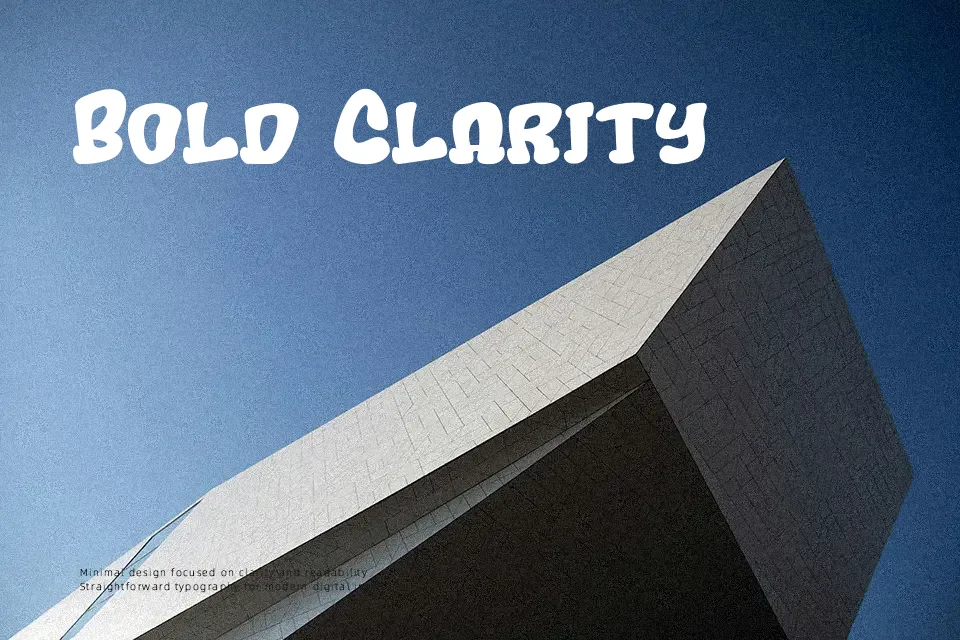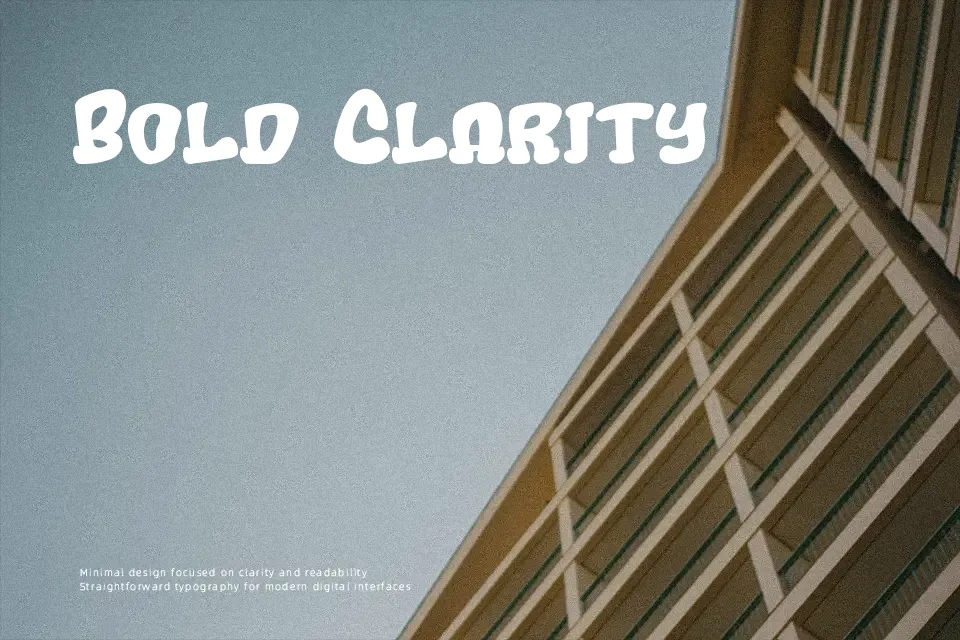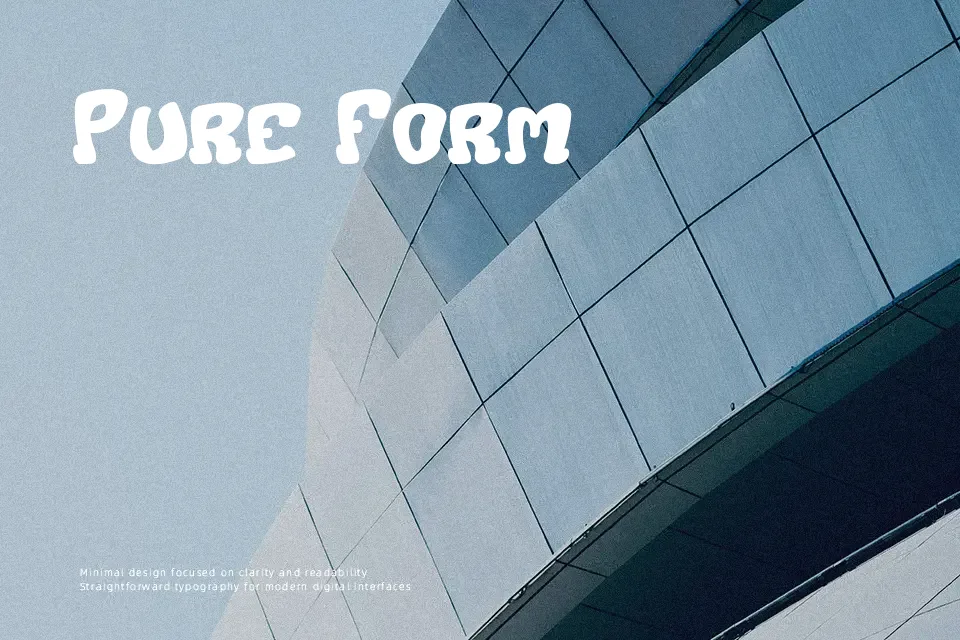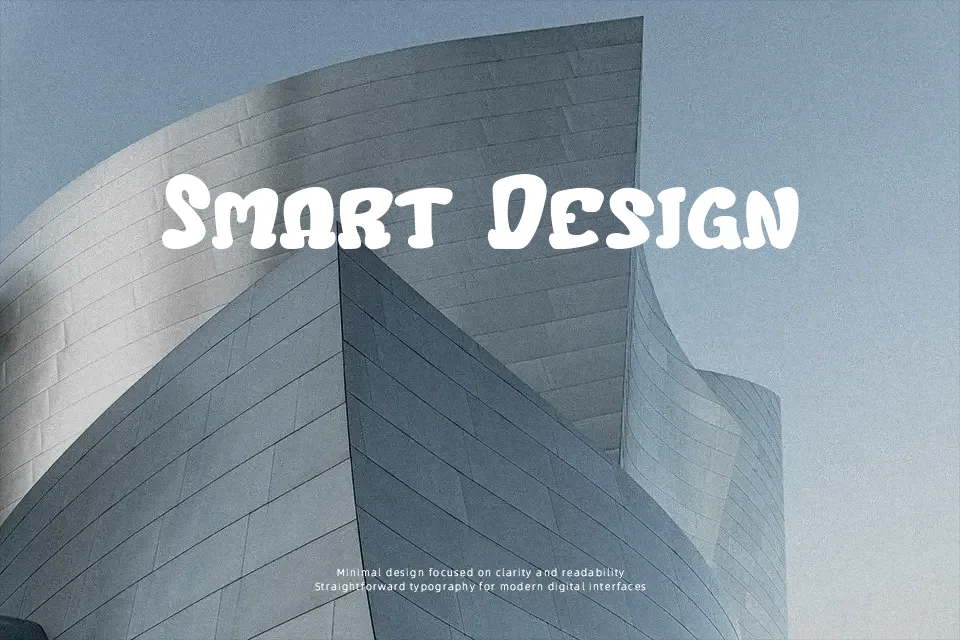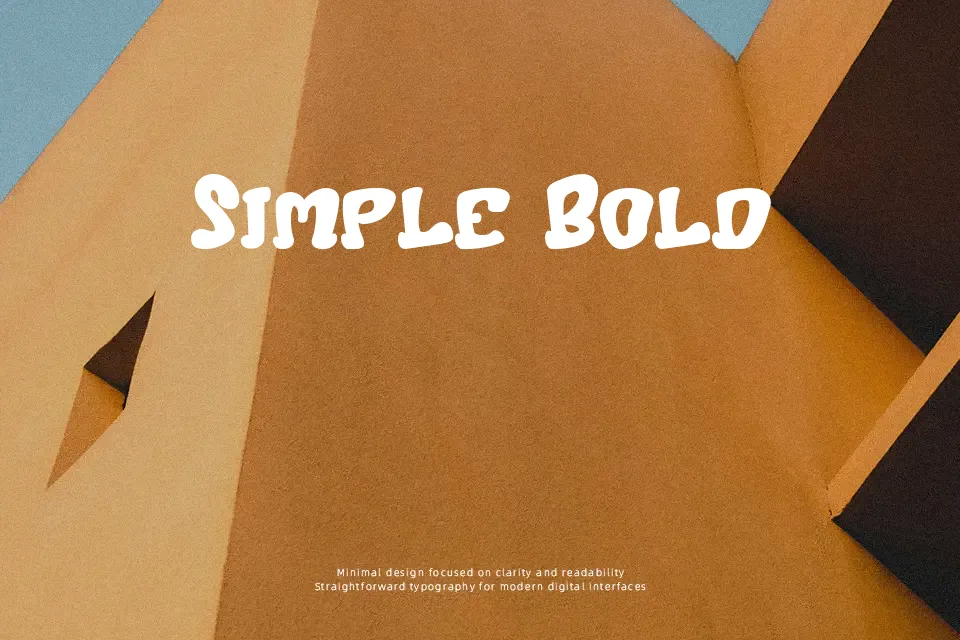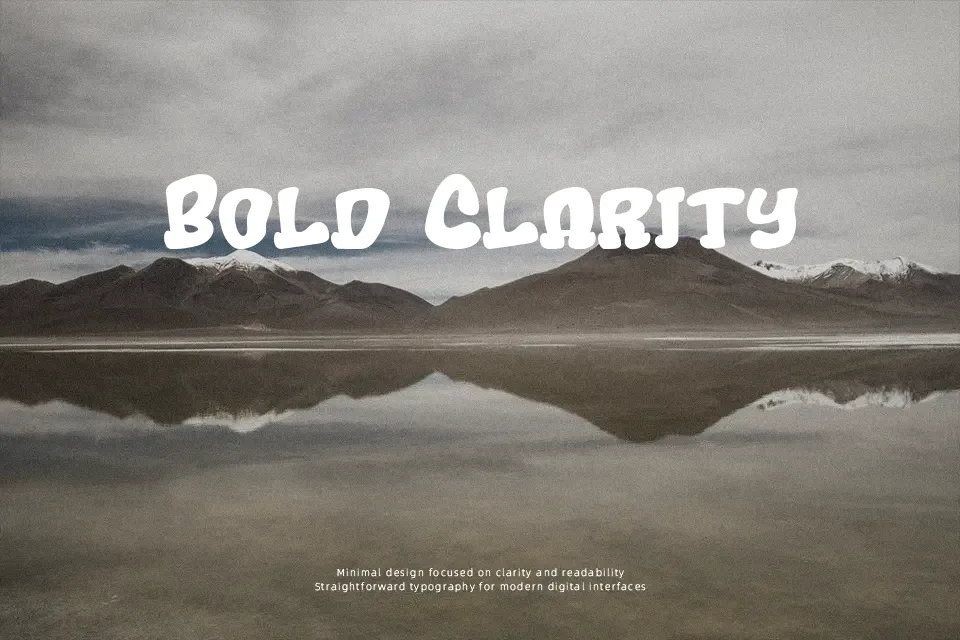
Sunday Cake Font
Sunday Cake Font commands immediate visual focus through its bulbous, heavyweight strokes, snug tracking, and generously rounded terminals. The uniform stroke thickness and compact vertical proportions produce a squishy, balloon-like silhouette across both upper and lowercase characters. While these exaggerated curves deliver striking graphic impact in oversized poster headers, novelty merchandise labels, and confectionery packaging, the dense anatomy and tiny internal counters significantly compromise reading comfort in continuous text. Dense settings cause individual glyphs to blend together at smaller scales. Practical testing reveals that the typeface performs most effectively when restricted to short, vibrant display titles.
Best For: retro festival posters, confectionery packaging, children’s book covers, novelty merchandise
Not Ideal For: long body text, corporate annual reports, small interface labels, dense editorial paragraphs
Perfect for headline, kids, and logo, with a bubble and decorative style.